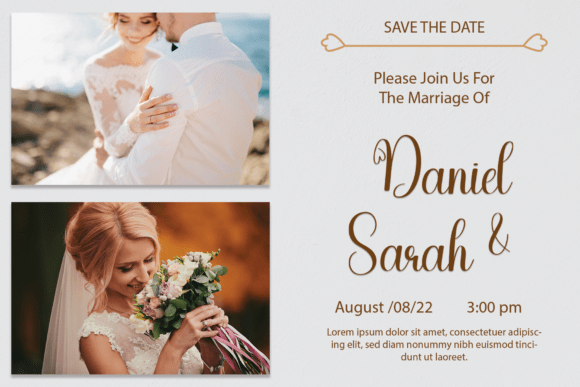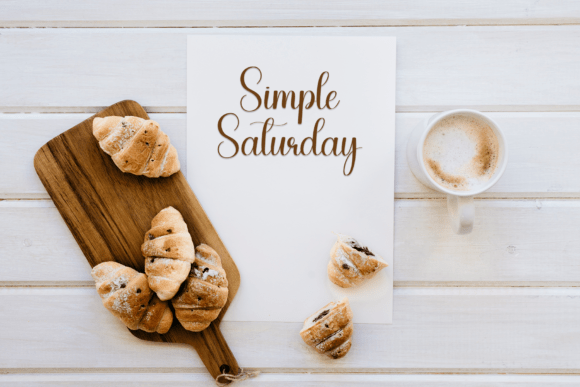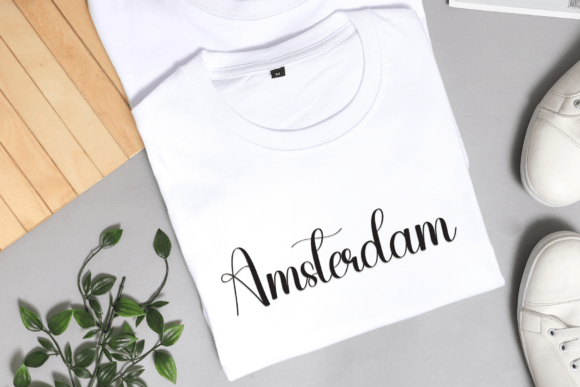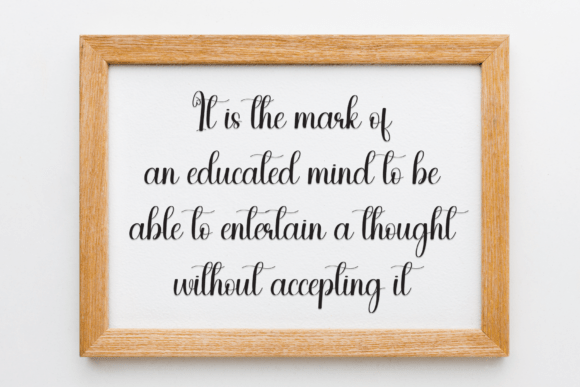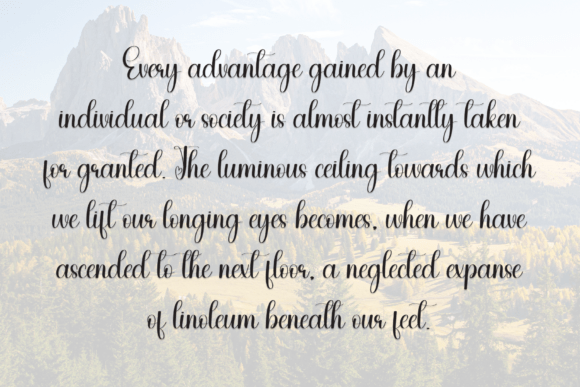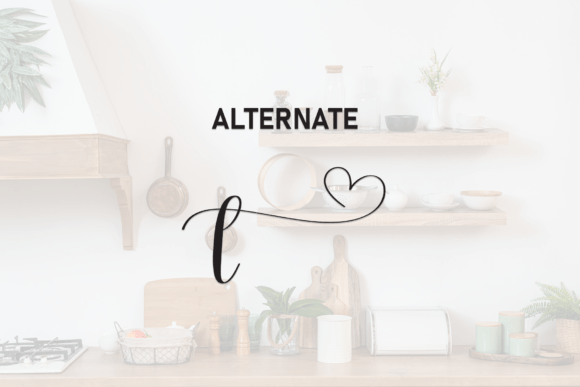
Bring a Taste of Elegance to Your Designs
As you sit down to plan your next culinary creation, do you ever feel like your designs are missing that special something? Perhaps it’s the perfect font to elevate your recipe book or café menu from ordinary to extraordinary. For designers seeking to add a dash of sophistication to their work, the Kitchen Font is an ideal choice.
This beautiful script typeface features a stunning heart-shaped flourish that connects seamlessly with the letterforms, creating a sense of warmth and handmade quality. Whether you’re creating personalized recipe books, high-end café menus, or artisanal food packaging, the Kitchen Font is the ultimate choice for adding a touch of elegance and professionalism.
Kitchen Font Key Features
- Unique Characteristics: This font features a unique blend of modern and traditional elements, with clean lines, rounded edges, and a touch of elegance, making it perfect for culinary and lifestyle brands.
Kitchen Font Review
I recently had the chance to dive into the “Kitchen Font” and share my honest thoughts. Here’s the breakdown:
- Unique Character: The “Kitchen Font” brings a fun and quirky touch to any kitchen-themed project. Its eclectic feel sets it apart from more traditional fonts.
- Playful Expressions: The font’s varied expressions, such as bold and italic, allow designers to add depth and personality to their work.
- Customization Options: The font offers a range of customization options, making it easy to tailor it to specific design needs.
- Limited Legibility: In certain situations, the font’s unique design can make it difficult to read, especially in smaller sizes or at a distance.
Overall, the “Kitchen Font” is a fun and creative option for designers looking to add some personality to their work. While it may have some limitations, its unique character and customization options make it a great choice for the right project.
Use “Kitchen Font” for headings and labels to add a touch of warmth and personality to your designs. Experiment with different font sizes and styles to create visual hierarchy and emphasis. You can also use it for captions and quotes to add a personal touch.
“Kitchen Font” is perfect for:
– Recipe books and cookbooks
– Food blogs and websites
– Restaurant menus and signage
– Kitchen-themed merchandise and products